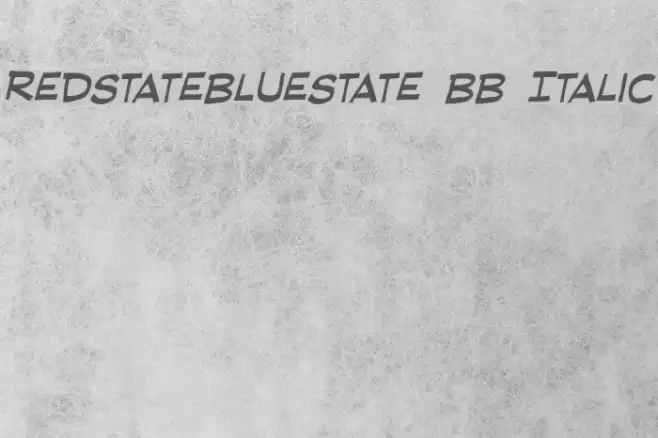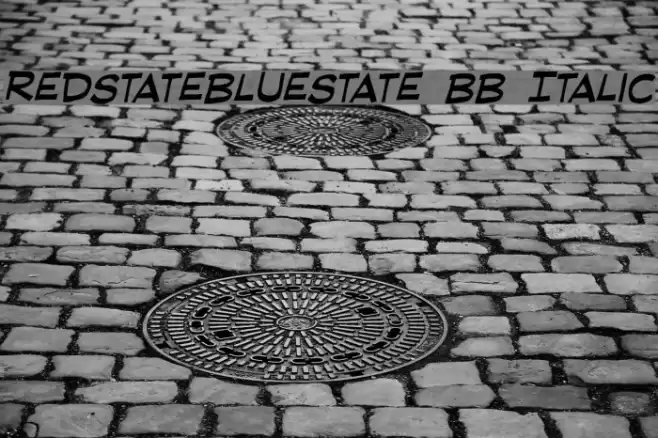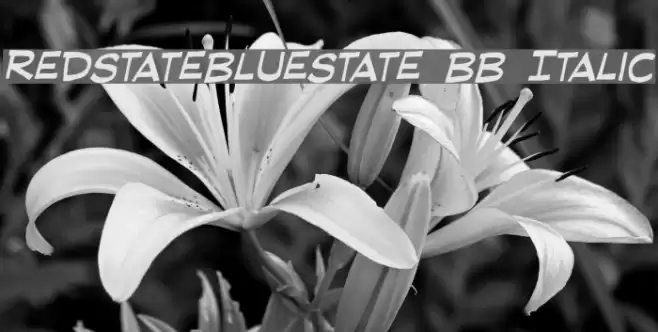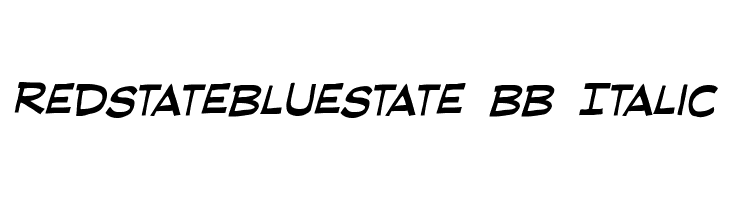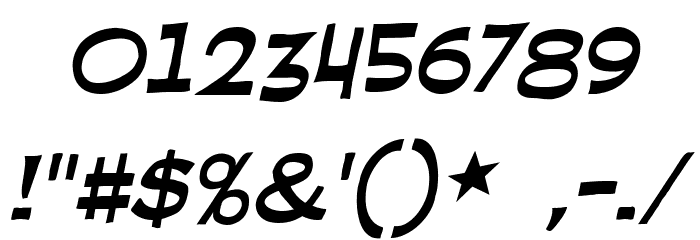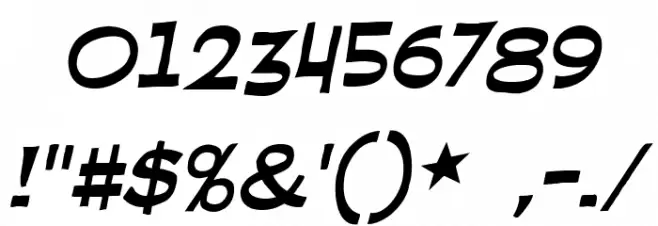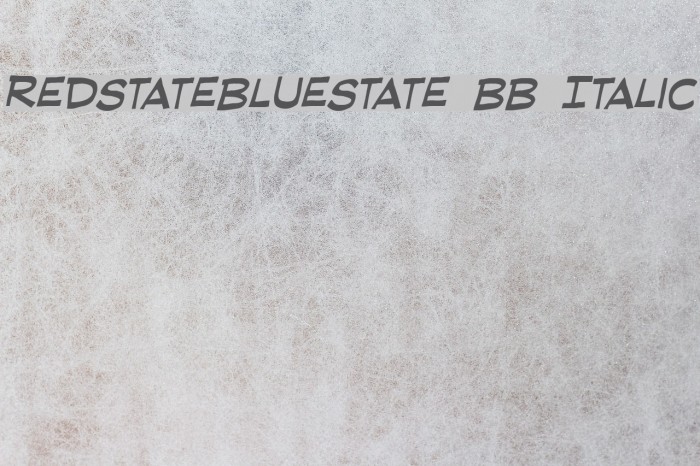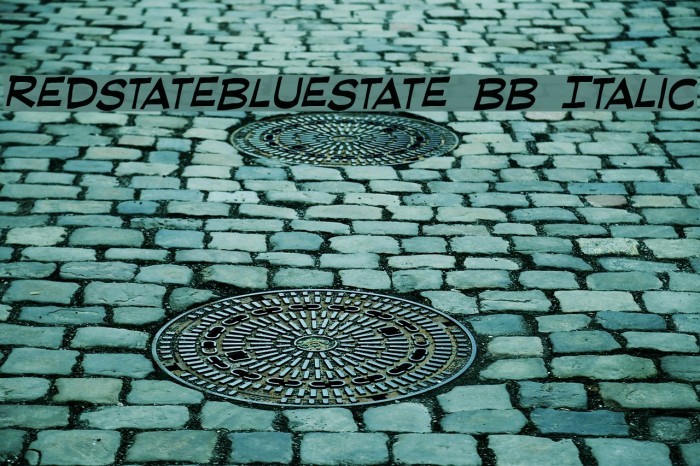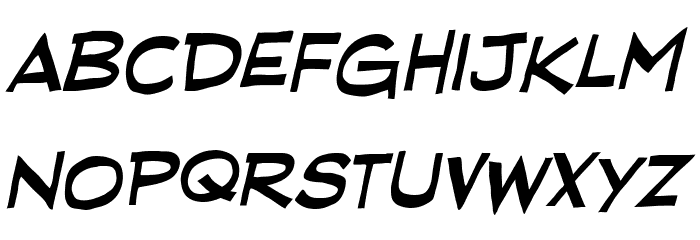
RedStateBlueState BB Italic Font
RedStateBlueState BB Italic Description
This font exhibits a dynamic and energetic style with a distinct italic slant, giving it a sense of motion and flair. The characters are bold and slightly condensed, with a playful yet assertive appearance. The strokes are consistent in weight, providing a uniform look across all characters. The uppercase and lowercase letters maintain a cohesive design, while the numerals are clear and easily distinguishable. Special characters are crafted with the same attention to detail, ensuring versatility in various design applications. The overall aesthetic is modern and slightly edgy, making it suitable for projects that require a bold statement.
A bold, italic font with a dynamic and modern style from Cartoon fonts.
- Proposed Projects: Ideal for branding, posters, and headlines that require a bold and energetic look.